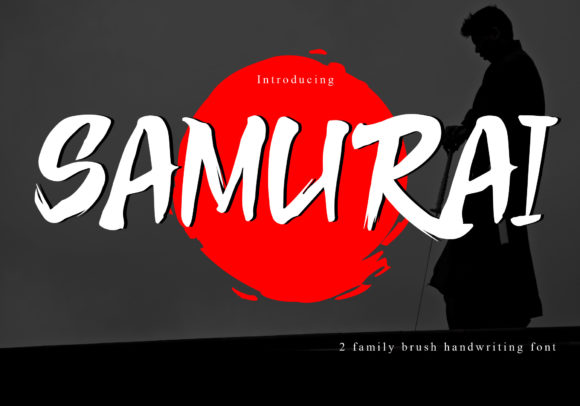
Introducing the Samurai Font Collection - a mesmerizing and one-of-a-kind display font that will transport your designs to the enchanting world of Japan. Created by the renowned BB Type Studios, this font is specifically designed to captivate and leave a lasting impression on anyone who lays eyes on it.
With its intricate details and elegant strokes, Samurai Font is the perfect choice for adding a touch of authenticity and charm to your creative projects. Whether you're designing a food menu, poster, flyer, or print, this font effortlessly blends the essence of Japanese culture with contemporary design elements.
Immerse your audience in the rich history and captivating allure of Japan with Samurai Font. Each character is carefully crafted to reflect the grace and artistry of traditional Japanese calligraphy. The fluidity of the strokes brings a sense of movement and life to every word, enhancing the visual impact of your designs.
Unlock a world of endless possibilities with Samurai Font. Its versatility allows you to explore various styles and themes, making it suitable for a wide range of applications. Whether you're aiming for a bold and impactful statement or a subtle and delicate touch, this font adapts effortlessly to your creative vision.
Let Samurai Font transport your audience to a realm of intrigue and fascination. Its Japanese-inspired design evokes a sense of mystery and elegance, creating an emotional connection with your viewers. With just a glance, they'll be transported to the enchanting streets of Kyoto or the serene beauty of Mount Fuji.
Experience the power of Samurai Font and witness its ability to elevate your designs to new heights. Its captivating presence will ensure that your message stands out from the crowd and leaves a lasting impression on your target audience. Say goodbye to ordinary fonts and embrace the extraordinary with Samurai Font.